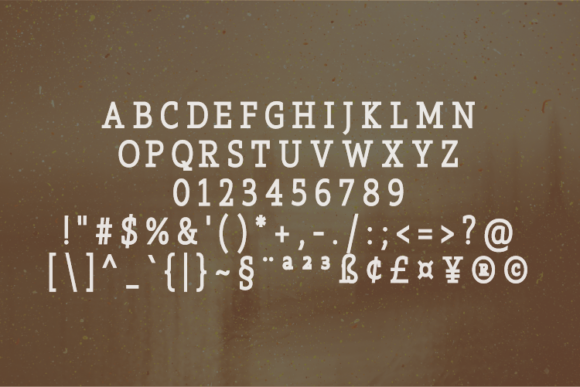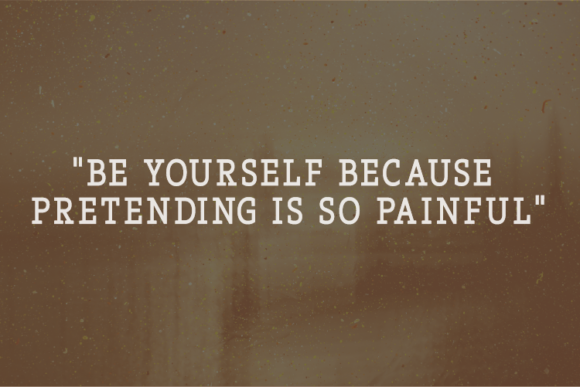
Introduction to Heanno Font
Have you ever found yourself staring at a blank canvas, eager to bring your creative vision to life, only to be stumped by the perfect font to elevate your design? We’ve all been there. The right font can make or break a project, and that’s why we’re excited to introduce you to the Heanno Font – a simple yet powerful design resource that’s about to become your new go-to.
With its clean, serif lines and versatility, the Heanno Font is the perfect companion for any creative project, whether you’re working on a high-quality logo, a visually striking website, or a free download that needs a professional touch. Its transparent background makes it easy to work with, allowing you to focus on the design rather than the details.
Key Features of Heanno Font
- High-quality design resource suitable for creative projects, offering a unique and stylish touch.
- Perfect for use in logos, branding, and other design elements where a modern and sleek aesthetic is desired.
Honest Review: Heanno Font
I recently stumbled upon the Heanno Font and was excited to give it a try for my current creative project. The first thing that caught my attention was the beautiful high quality design. The font has a unique and modern aesthetic that’s perfect for any design resource.
- ⚠️ The font may not be suitable for very small text sizes, as the letters can become distorted.
- ⚠️ Some users may find the font a bit too bold or overwhelming, depending on the context.
Overall, I’m impressed with the Heanno Font. It’s a great addition to any design resource, and the free download option makes it a no-brainer for those looking for a high-quality font. With a bit of customization, it can be the perfect fit for your creative project.
Heanno Font
The Heanno Font is a high-quality design resource that offers a unique and creative touch to your projects. With a transparent background, this font is perfect for adding a stylish element to your designs.
The Heanno Font is perfect for:
1. Creating eye-catching headings and titles.
2. Adding a touch of elegance to your designs.
3. Creating a unique and creative brand identity.
Alternatives to Heanno Font
Oswald is a popular, high-quality sans-serif font ideal for creative projects. It’s a great choice for designers who want a clean and modern look. When to use: headings, titles, and body text. How it compares to Heanno Font: Oswald has a more modern feel, while Heanno Font is more vintage-inspired. It’s available for free download and supports a transparent background.
Open Sans is a versatile, high-quality sans-serif font that’s perfect for a wide range of design projects. It’s a great choice for designers who want a clean and approachable look. When to use: body text, headings, and titles. How it compares to Heanno Font: Open Sans is more neutral and easy to read, while Heanno Font has a more distinctive style. It’s available for free download and supports a transparent background.
Lato is a high-quality sans-serif font with a modern and elegant feel. It’s a great choice for designers who want a sophisticated look. When to use: headings, titles, and body text. How it compares to Heanno Font: Lato has a more refined and polished look, while Heanno Font is more playful and vintage-inspired. It’s available for free download and supports a transparent background.